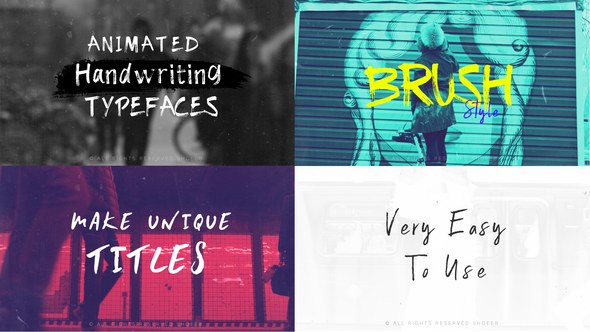
Paint On Animated Typeface
This is a 1080p Adobe After Effects Project of an animated typeface similar to a brush painting on. Each unique character paints on with white, black and blue colors which could easily be customized to a specific color if required. No 3rd party plugins are required and it works with the Characteristic script(available on aescripts). Quicktime footage of each character is included if you plan to use this in a different application besides After Effects. Two sample projects are included one in 2d and the other in 3d. Finally a English speaking video tutorial is included which can preview here. The audio used(CrazyTunes – Summer) is not included with this project but can be downloaded here on audio jungle
- 40 Characters
- Each Character is about 850px tall